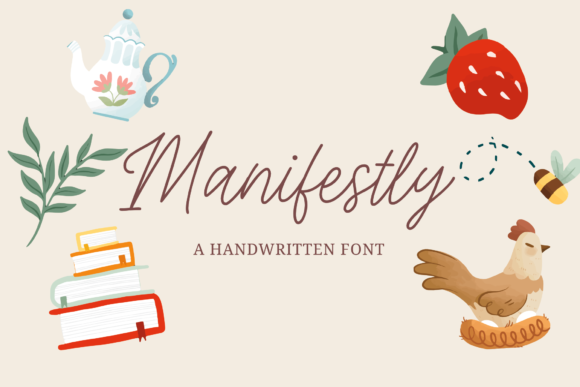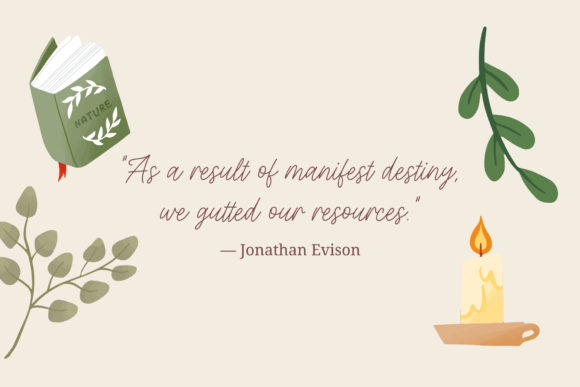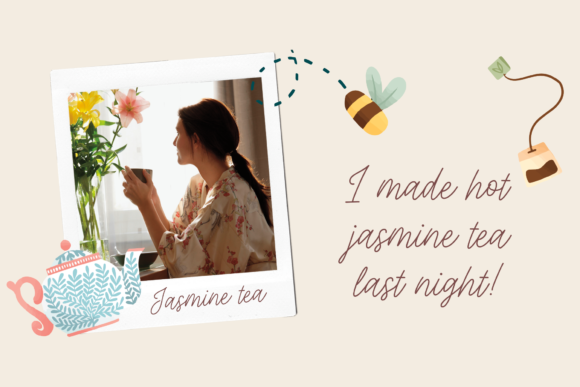
About Manifestly Font
“Manifestly” is a slim and exquisite handwritten font that brings a stylish, graceful, and flowing quality to your creations. With its slender design, this font elevates the overall aesthetic, adding a touch of sophistication while maintaining a grounded and natural feel.
The slim and graceful nature of “Manifestly” makes it a versatile choice for various design applications. Whether you’re working on invitations, branding, or any project that requires a touch of elegance, this font provides a sleek and refined appearance.
Imagine “Manifestly” enhancing the look of invitations, where its slender and flowing script creates a sense of sophistication. The font’s graceful strokes contribute to an elegant atmosphere, making each invitation a work of art.
In branding projects, “Manifestly” becomes a distinctive choice, infusing your visual identity with a stylish and natural charm. The slim letterforms add a modern touch, ensuring your brand stands out with a contemporary flair.
The flowing quality of “Manifestly” extends its versatility to various design contexts. From posters to product packaging, this font can seamlessly adapt to different creative visions, bringing a touch of refinement to each project.
As you incorporate “Manifestly” into your design projects, let its slim and exquisite handwritten style inspire a sense of elegance. May the flowing strokes elevate the look of your creations, making them visually captivating and grounded in natural beauty.